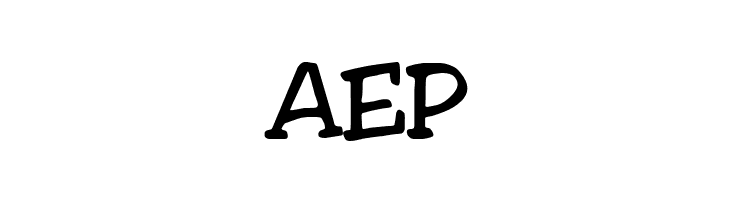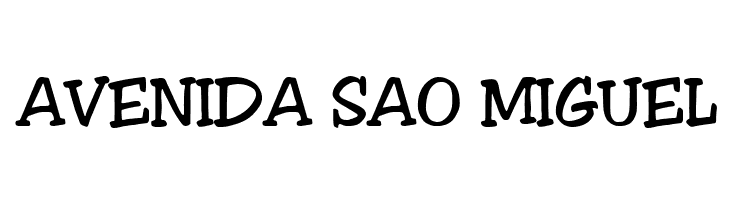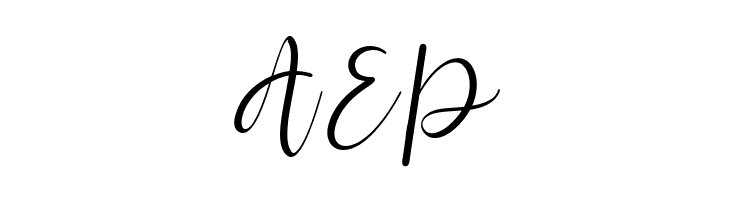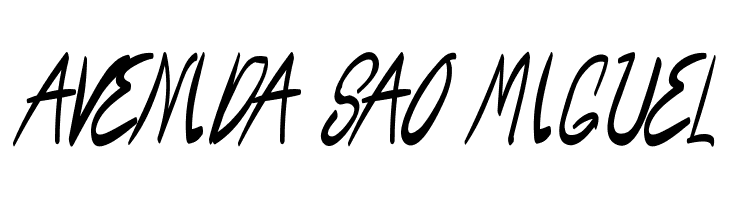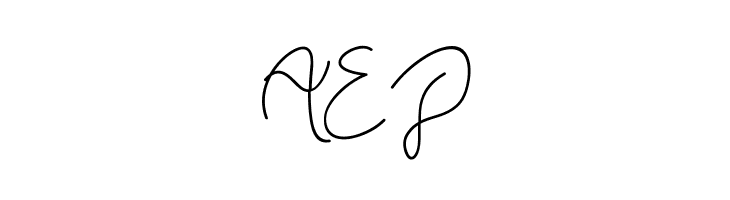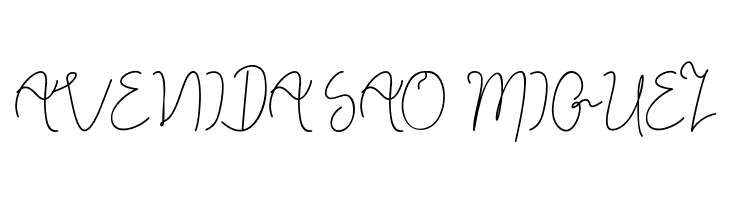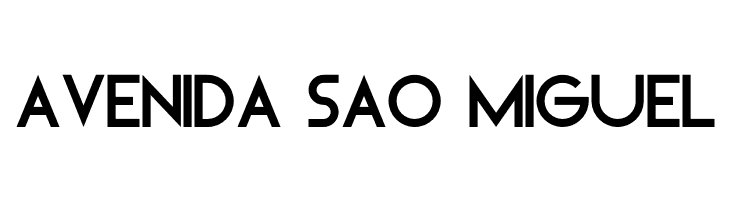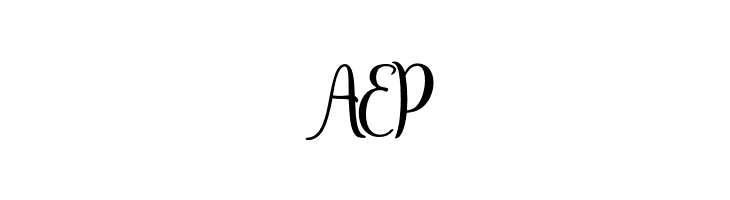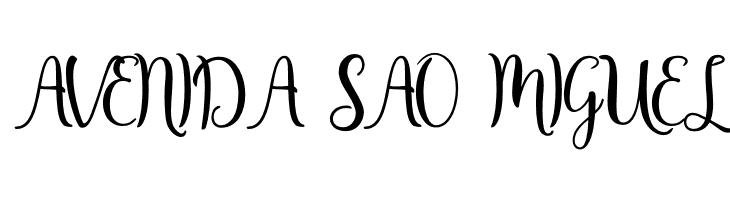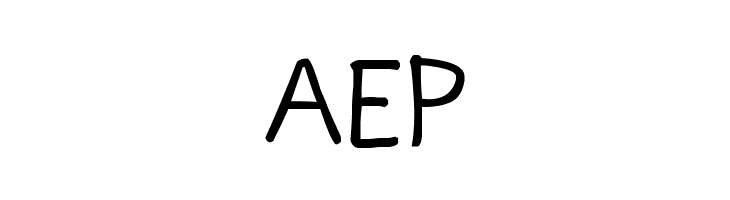
A playful, handwritten font with smooth, rounded edges and a casual style.
A bold, playful script font with a casual, handwritten style.
A flowing, elegant script font with bold uppercase and graceful lowercase letters.
An elegant, flowing script font with a calligraphic touch.
An elegant and flowing script font with graceful curves and cursive lines.
A lively and expressive script font with fluid, continuous strokes.
A decorative font with elongated, intertwined letterforms and whimsical details.
An elegant and ornate script font with flowing, high-contrast strokes.
An elegant, flowing script font with a cursive style and graceful connections.
An elegant script font with flowing lines and decorative swashes.
A playful, casual handwritten script with thin, flowing lines.
A playful, bold script font with smooth, rounded characters and seamless connections.
A modern, geometric sans-serif font with bold, uniform characters.
A cursive, handwritten-style font with elegant loops and swashes.
A bold and dynamic script font with fluid, cursive letterforms.
A playful handwritten font with an informal and casual style.
A lively and elegant script font with flowing, cursive letterforms.
A bold, playful script font with a lively, handwritten style.
A rugged, hand-drawn font with sharp, angular lines and a distressed look.
A smooth, brush-style script font with dynamic, flowing characters.
A smooth, brush-style script font with elegant, flowing characters.